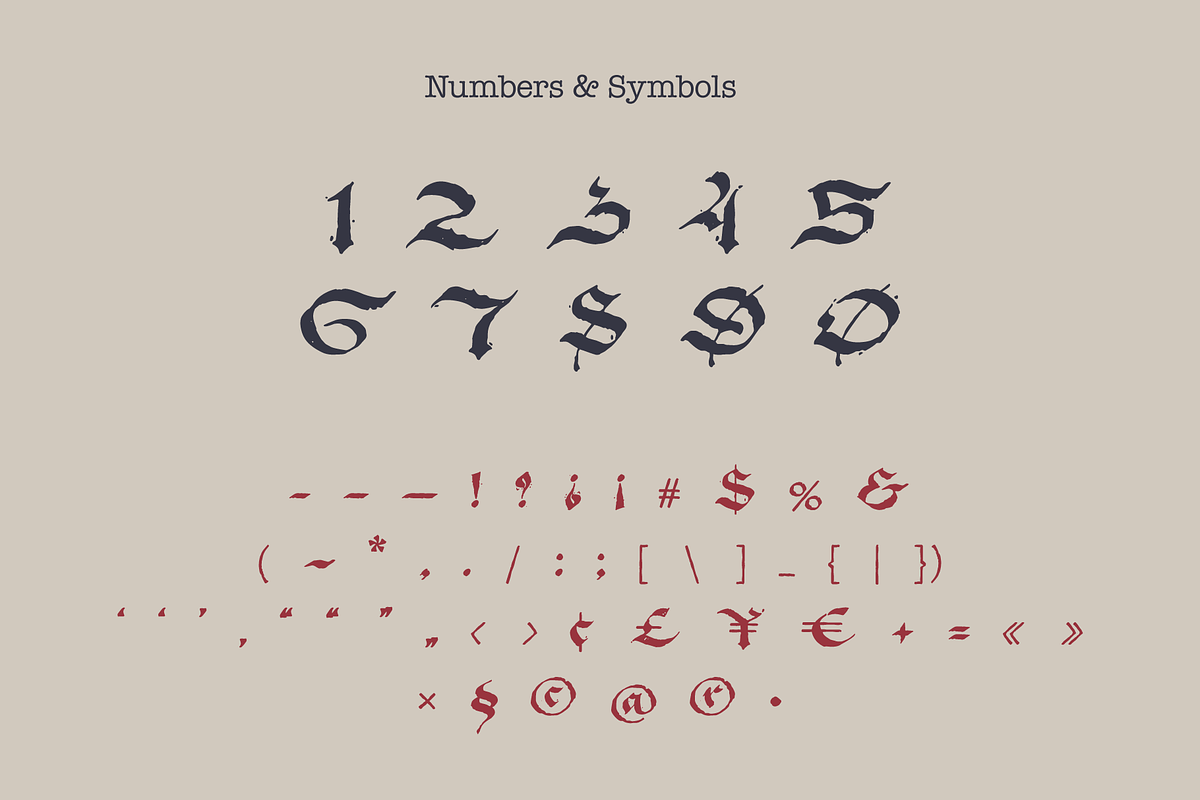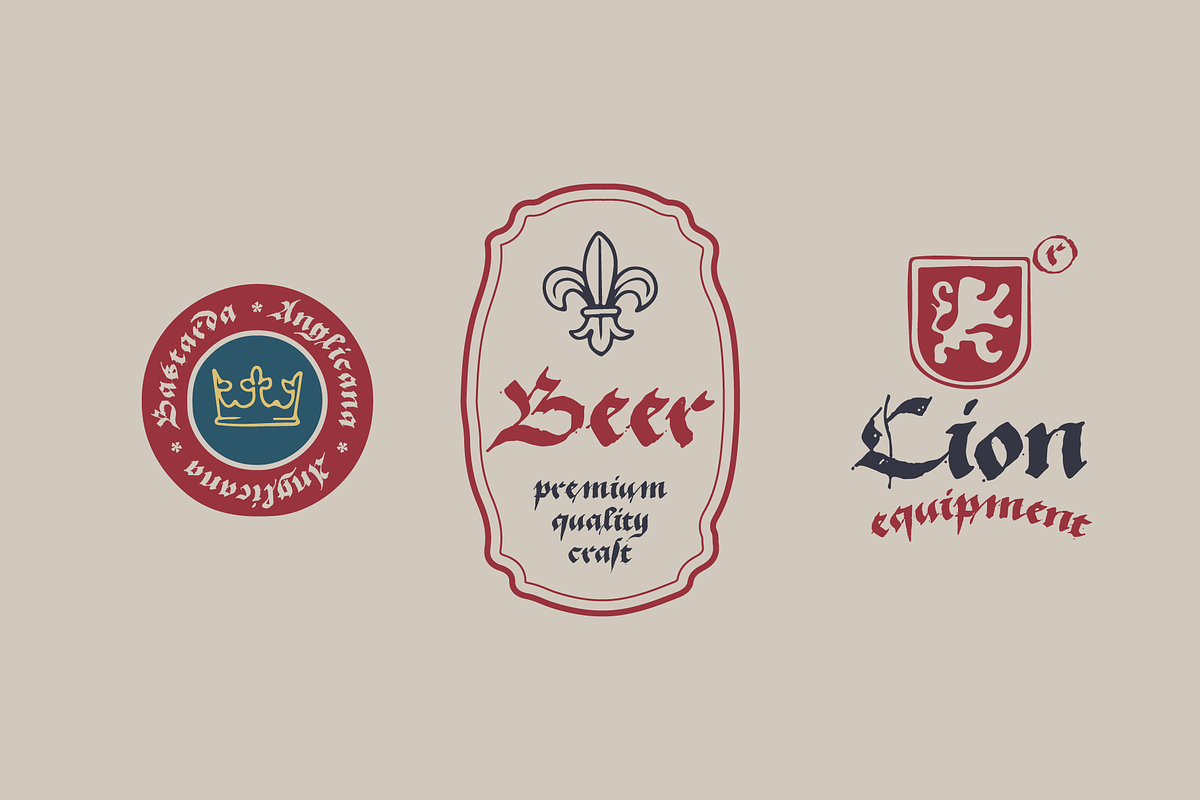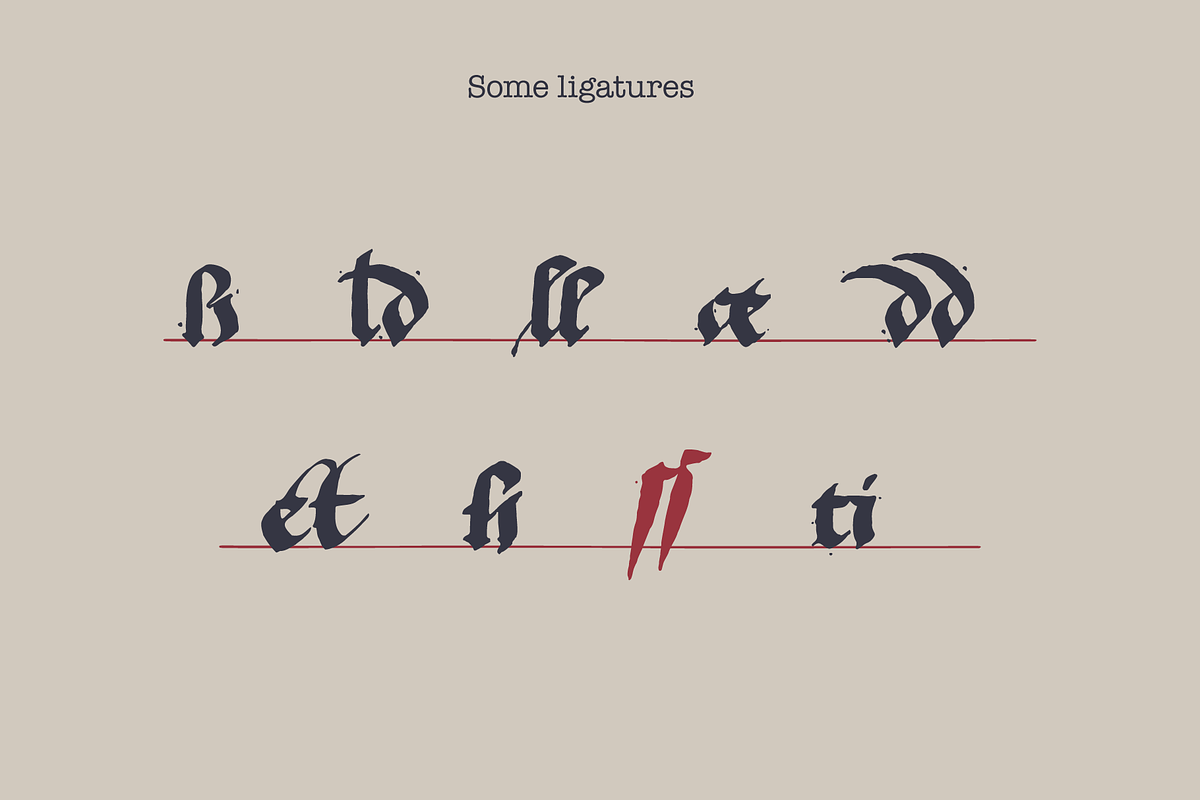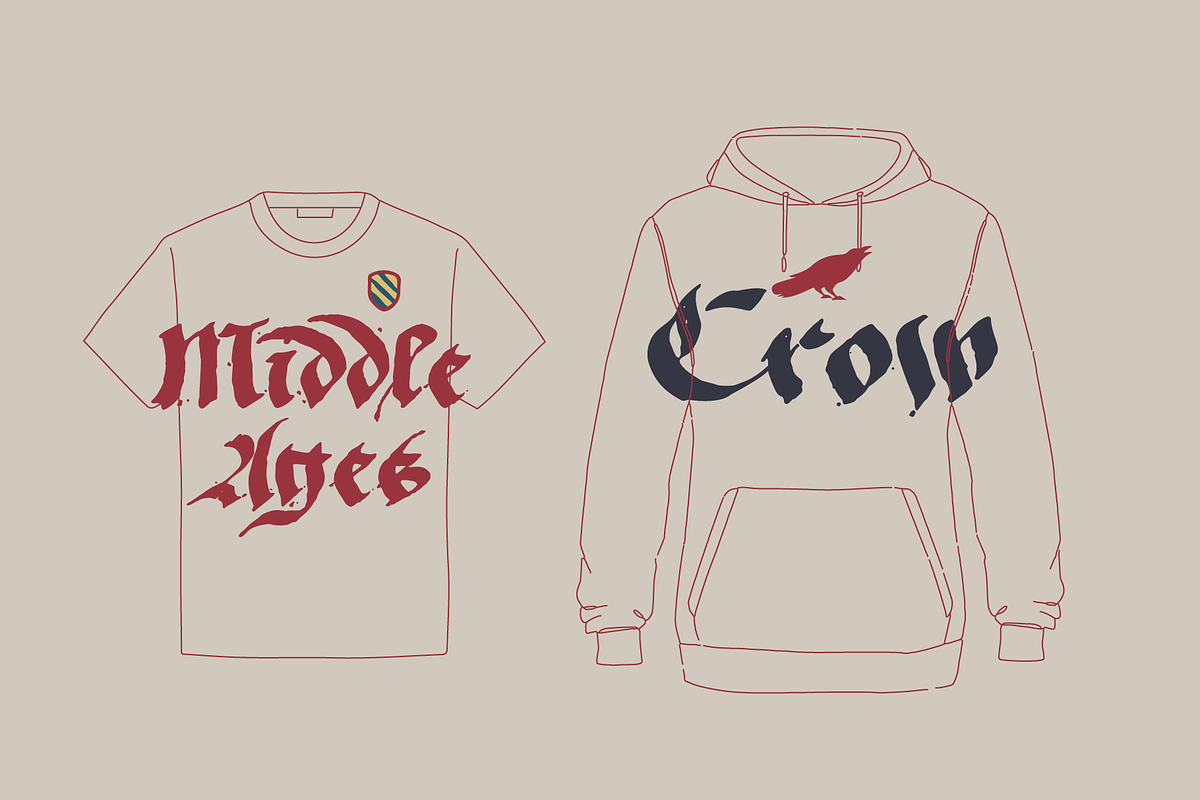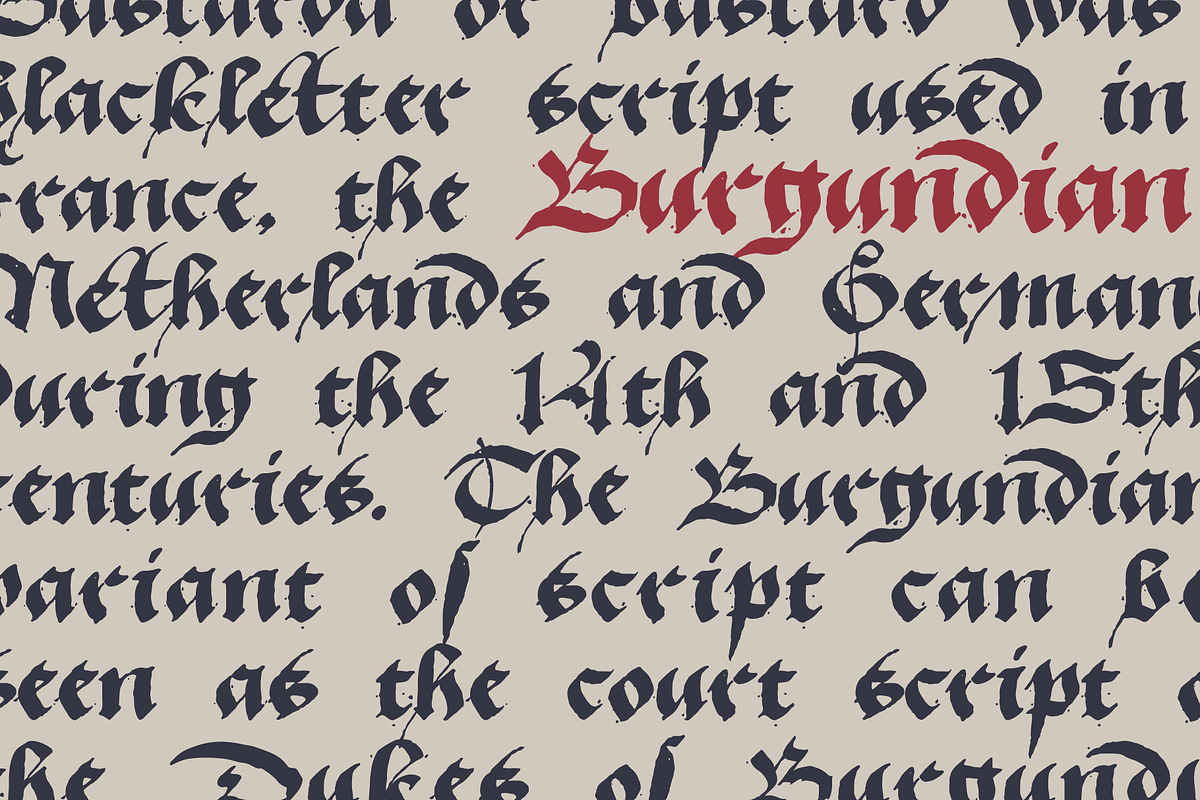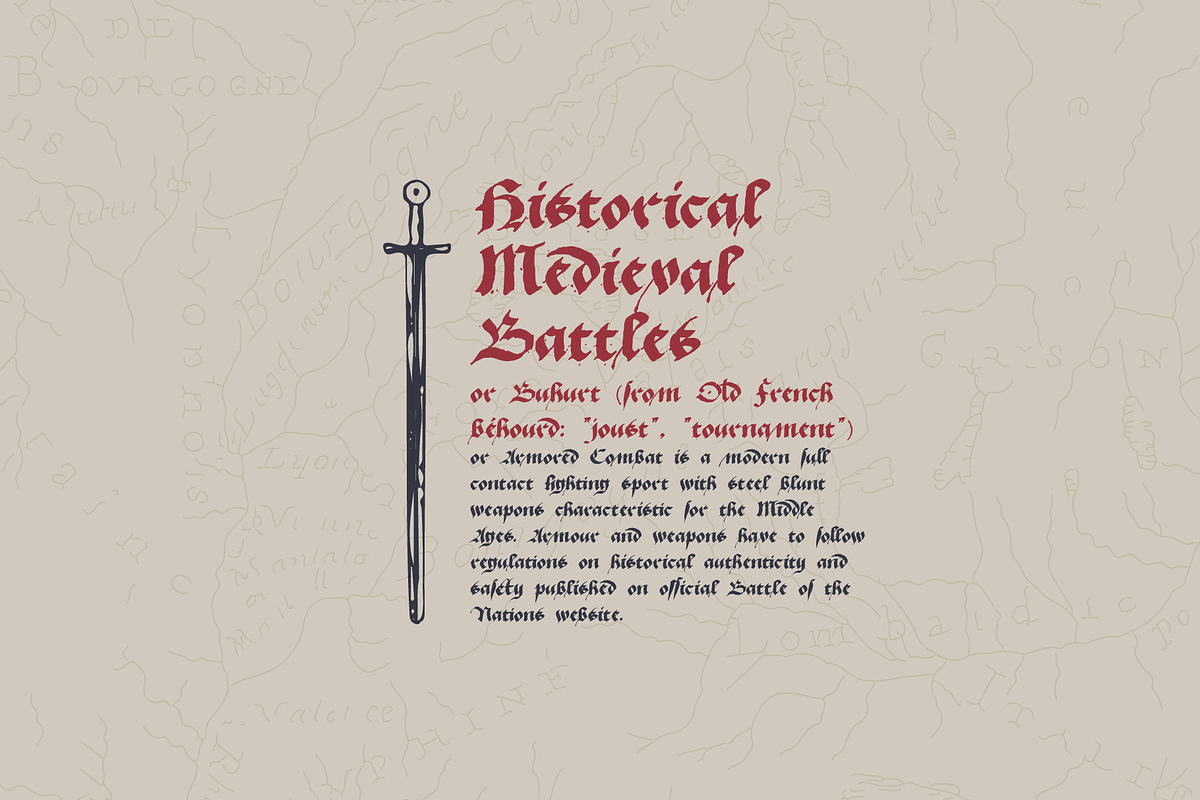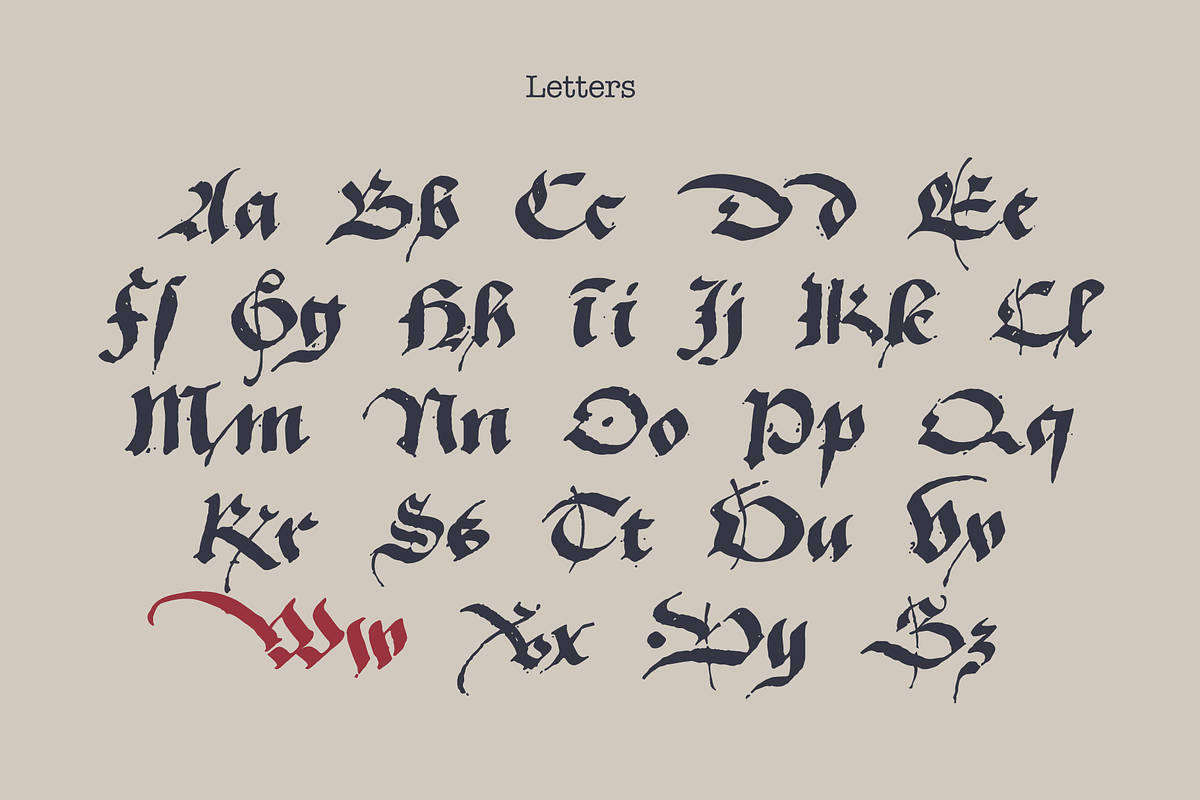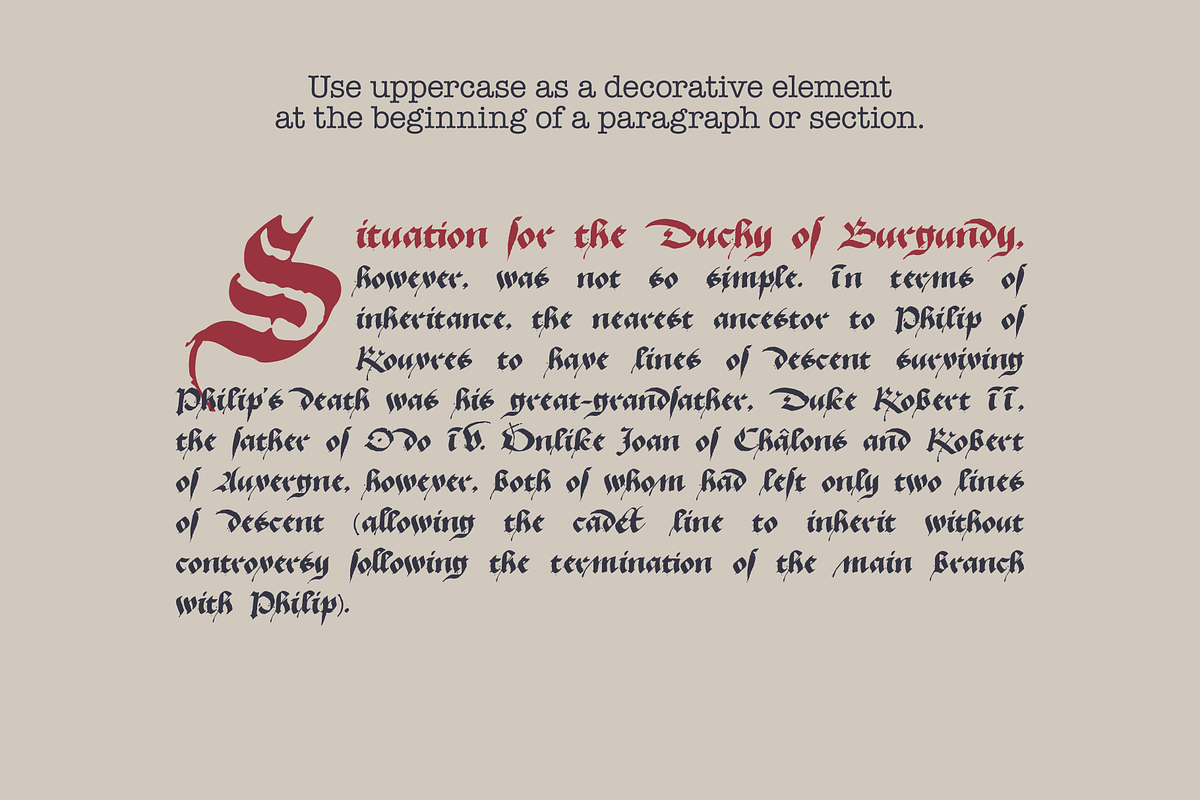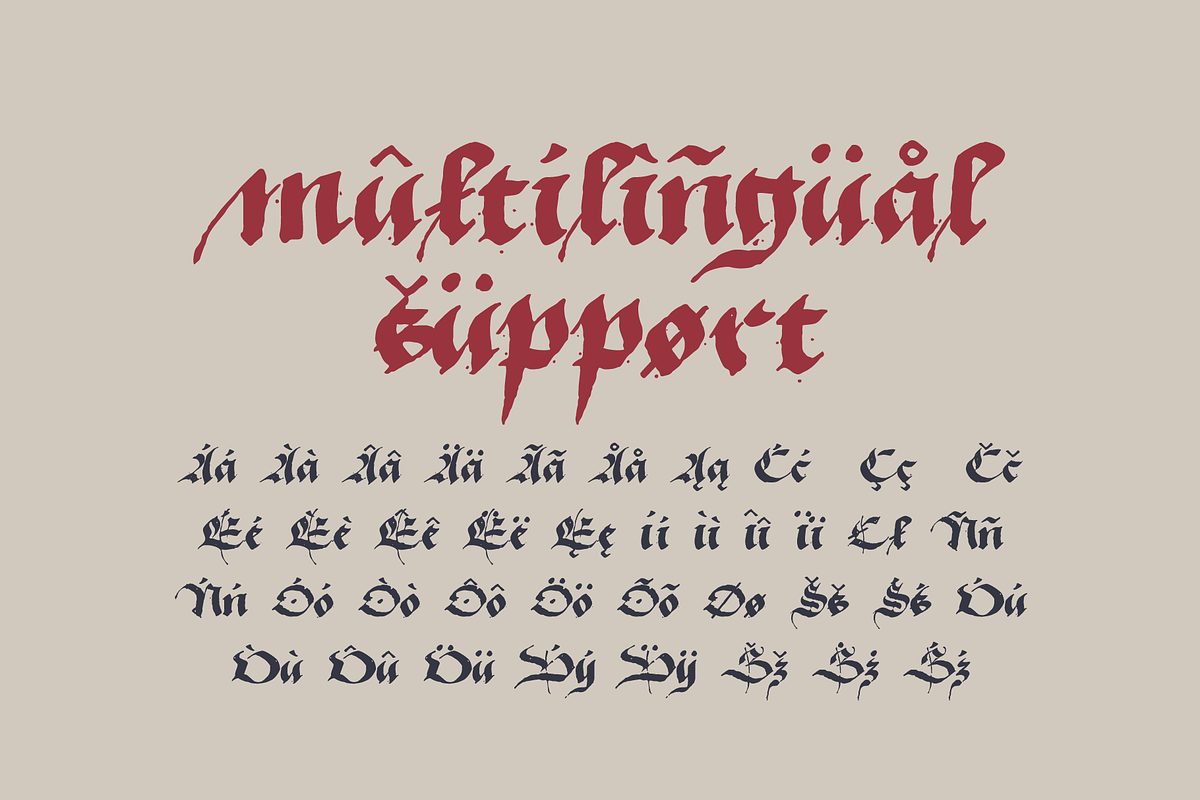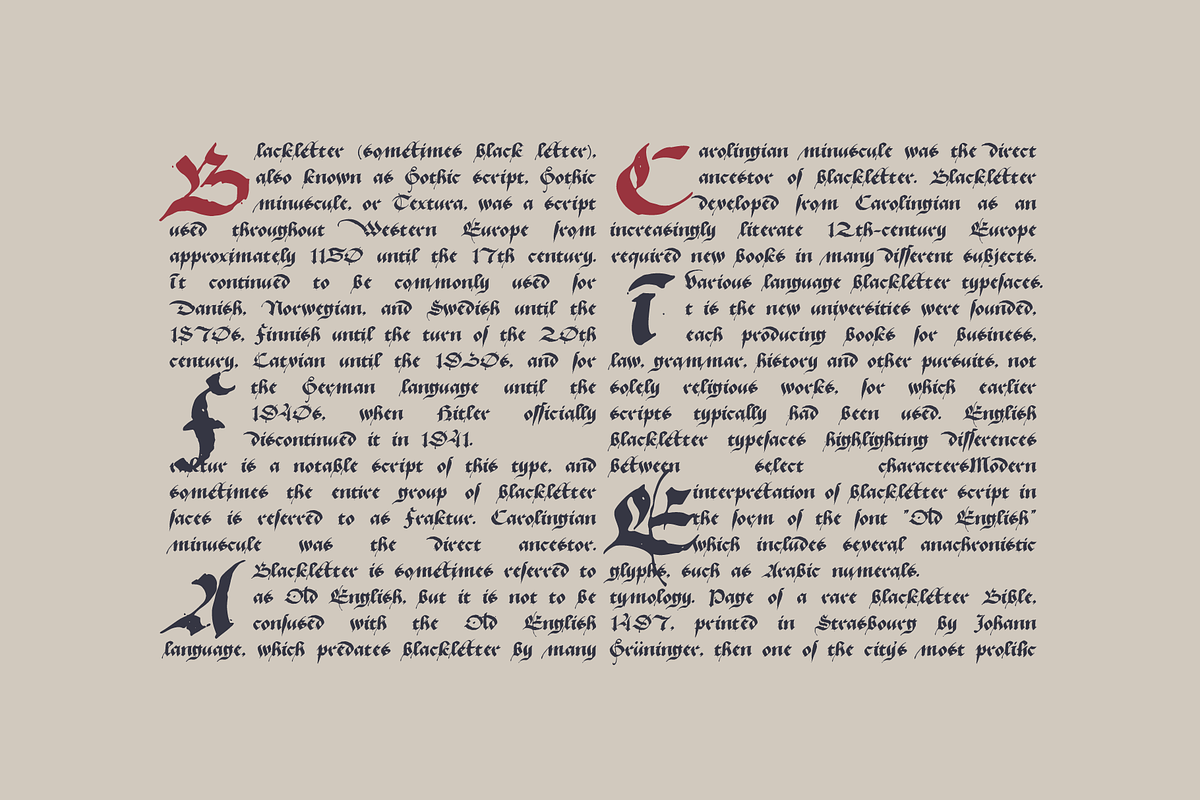
The Duchy Of Burgundy Bastarda
My new font took the roots from The Book of Hours, was created in Burgundy at the beginning of the 16th century. Like other books of this type, the manuscript contains a church calendar, texts of readings from the four Gospels, and prayers.
The manuscript is written in Latin, with a special form of Gothic script called bastarda. Bastarda or bastard was a blackletter script used in France, Netherlands, and Germany. The Burgundian variant of script can be seen as the court script of the Dukes of Burgundy. This fact was the instant point for my fonts name.
- Numbers and symbols
- Additional glyphs